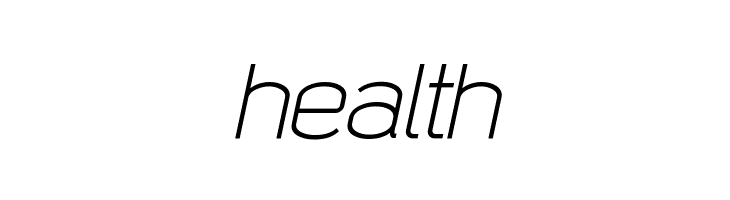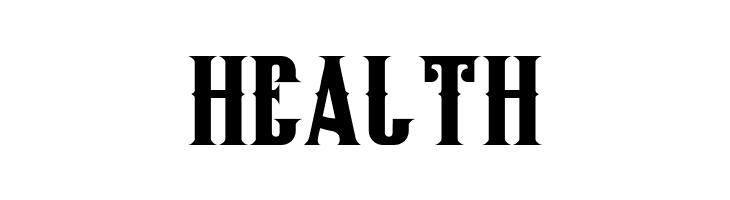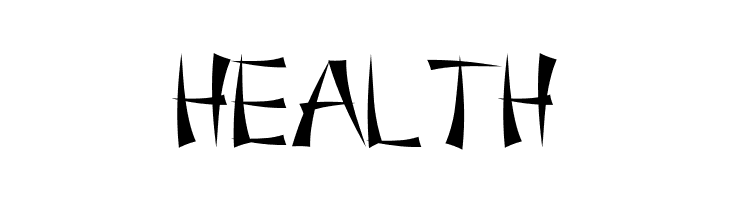
A sleek, modern italic font with clean lines and dynamic elegance.
A sleek, italicized font with a modern and elegant style.
A bold, decorative font with vintage, western-inspired serifs and high contrast strokes.
A bold, edgy font with sharp angles and a rebellious style.
A sleek, modern, and thin italic font with a clean and elegant design.
A modern, italic font with elongated, narrow characters.